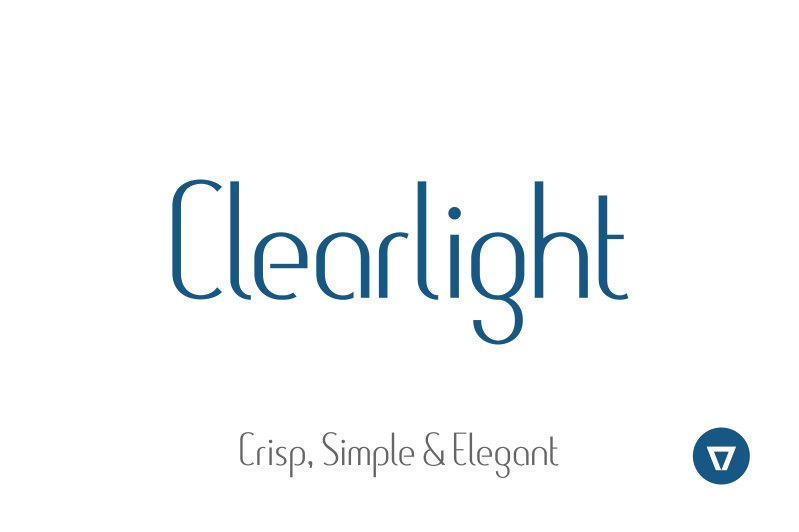
Font name: | Clearlight |
Author: | NimaVisual |
Note by NimaVisual | |
Clearlight is a crisp and simple sans serif. It's a bit technological with fancy details, giving it a friendly and elegant look. Commercail license available here https://creativemarket.com/NimaVisual/503447-Clearlight |